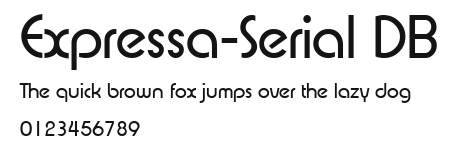
Expressa-Serial DB Preview
• Font Name: Expressa-Serial DB
• Full Font Name: Expressa-Serial-Regular DB
About Expressa-Serial DB.ttf
Expressa-Serial DB.ttf is a modern, elegant sans-serif font designed for ultimate readability and visual harmony. Perfect for branding, headlines, web design, and print materials.